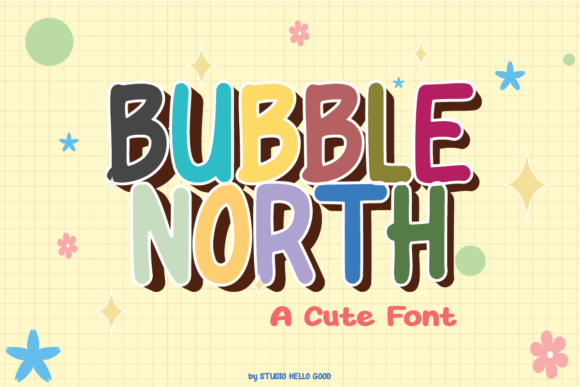
Journey into the world of Bubble North, a display font that captivates with its playful charm and authentic vibes. Picture this: a font so delightful, it dances across your screen, evoking the sweet innocence of childhood. Perfect for any school project or children's activity, this chunky lettered font breathes life into your designs, adding a splash of color and a touch of whimsy.
Step into the classroom with Bubble North as your guide, transforming ordinary worksheets into vibrant learning adventures. Its bold strokes and playful curves captivate young minds, making even the most mundane tasks feel like an exciting expedition. Unleash your child's creativity with this font that encourages self-expression and fuels their imagination.
Beyond the classroom, Bubble North becomes a storyteller's secret weapon. Craft captivating movie titles that leap off the screen, inviting viewers into a world of wonder and enchantment. Create eye-catching posters and flyers that demand attention, leaving a lasting impression on all who behold them. Let your words dance and play, painting pictures that ignite imaginations and leave hearts yearning for more.
With Bubble North at your fingertips, ordinary becomes extraordinary, and the mundane transforms into the magical. Embrace the spirit of playfulness and authenticity, and let this font infuse your designs with a captivating charm that will leave a lasting impression on your audience.